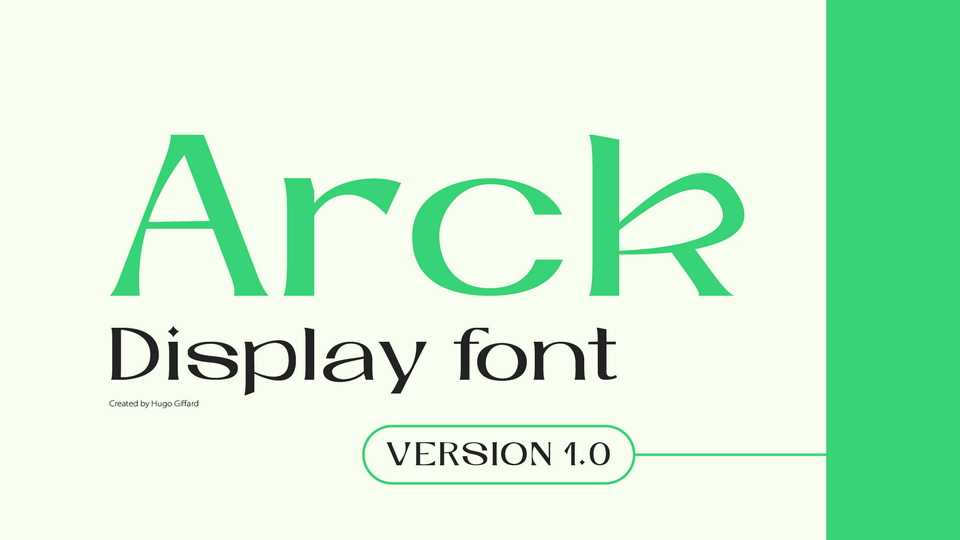
Download Arck font, a high contrast modern display typeface. With its contemporary look Arck font well-suited for large setting display as well as medium size design.
Designer: Hugo Giffard